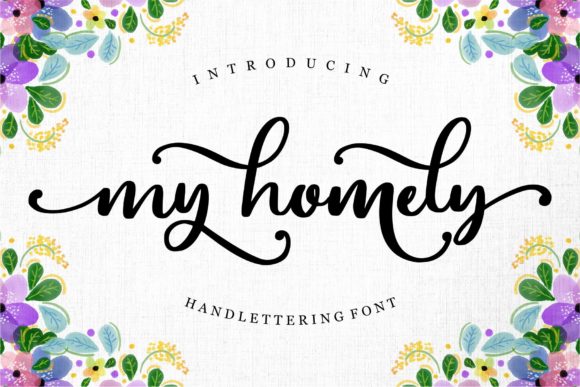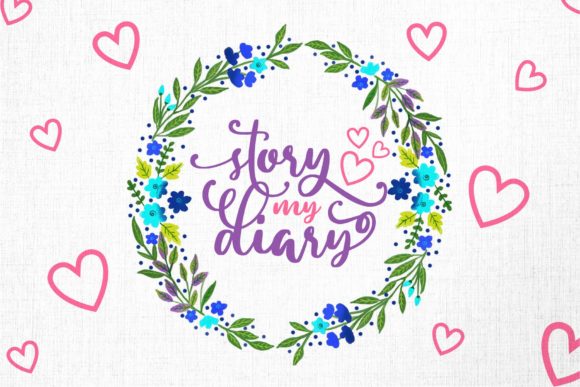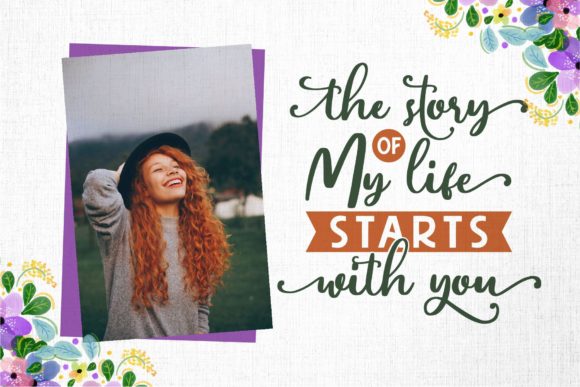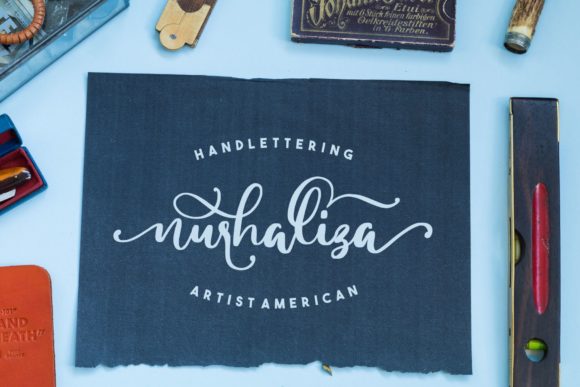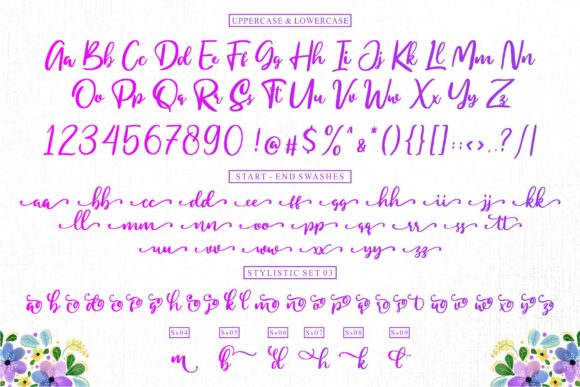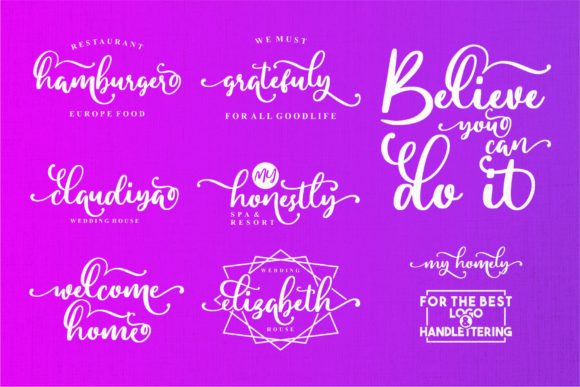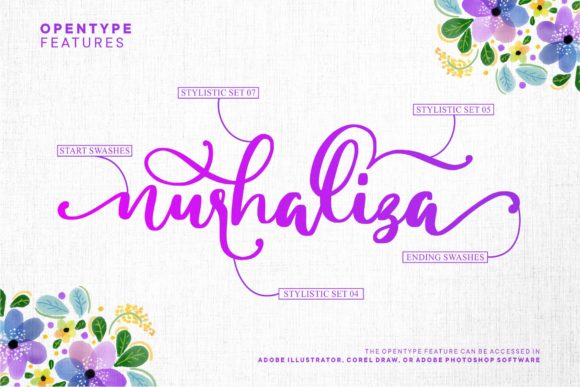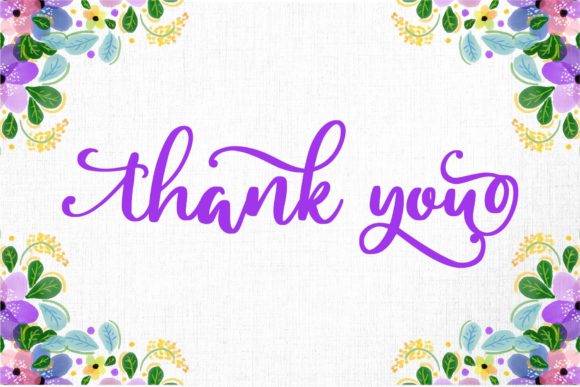
My Homely Font
About My Homely Font
My Homely is a beautiful script font with many swashes and alternate characters to help make your designs unique. This font is perfect for invitations, monograms, weddings, fashion, branding, and much more.